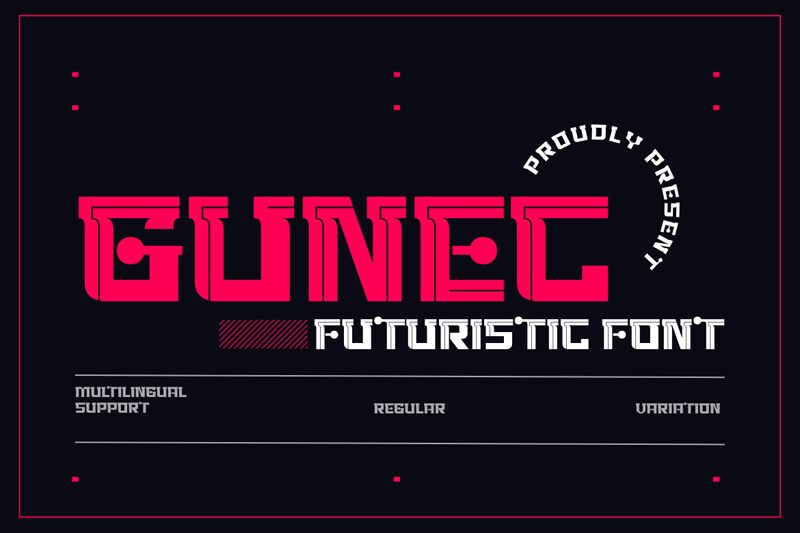
GUNEC Variation
Gunec Variation font by Twinletter is a display typeface with an expanded width and blocky futuristic style. It can easily become the main focus of any design that requires performance, attention, and impact. Every single letter features an offbeat look intended mainly for entertainment while also appearing professional and minimalist at the same time.
A bold presence that triggers visual impact makes it suitable for posters, ads, banners, video game covers or titles, website headers, magazine covers, book covers about space or dimensions beyond this universe including advanced technologies. Fonts of this nature are also typical in sci-fi motion pictures and TV shows where they are part of the general look.